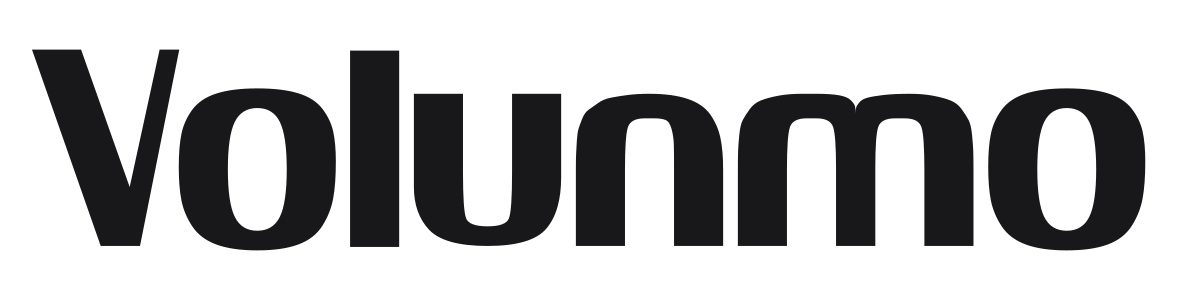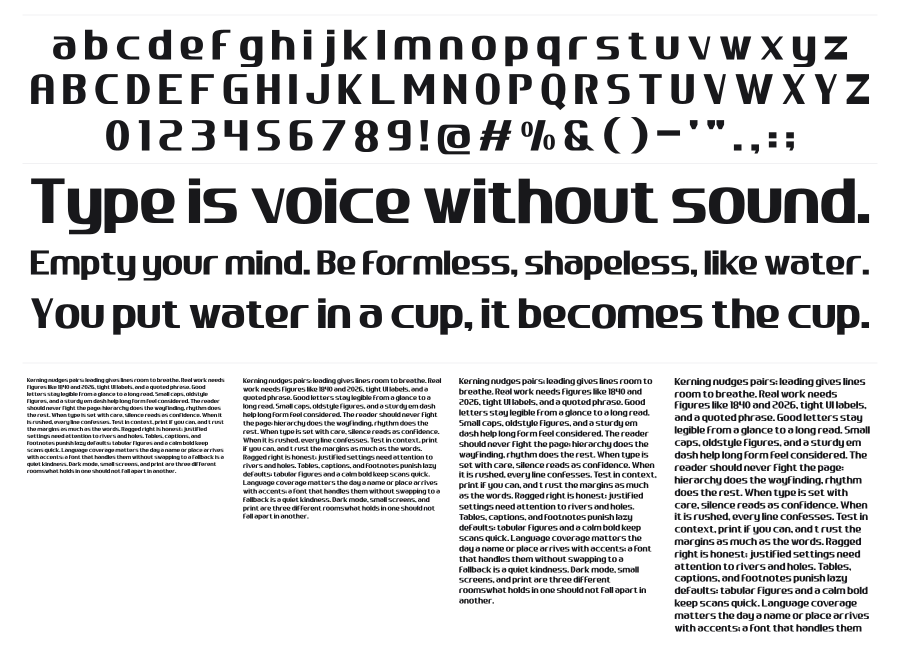
Volunmo
Volunmo is a heavy geometric sans with bold, commanding proportions and a mix of angular cuts and soft rounded terminals. The contrast between its industrial sharpness and subtle warmth gives it a contemporary streetwear edge. It lands naturally in fashion branding, music packaging, and anywhere a headline needs weight and attitude.